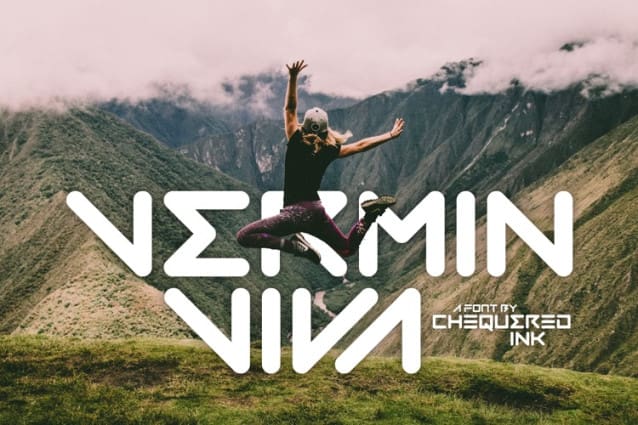
Vermin Viva Font
Vermin Viva Font, it would be a perfect choice to design posters, affiches, logos, t-shirt and magazine prints, eye-pleasing typographic designs and more.